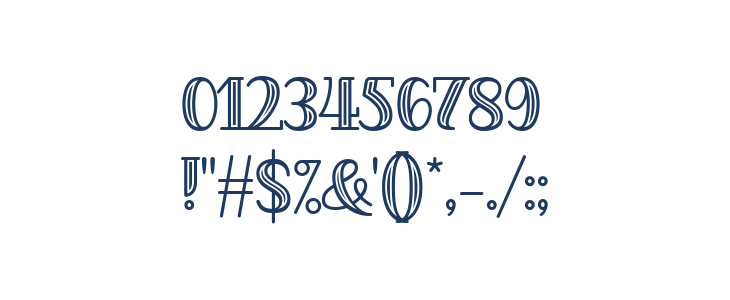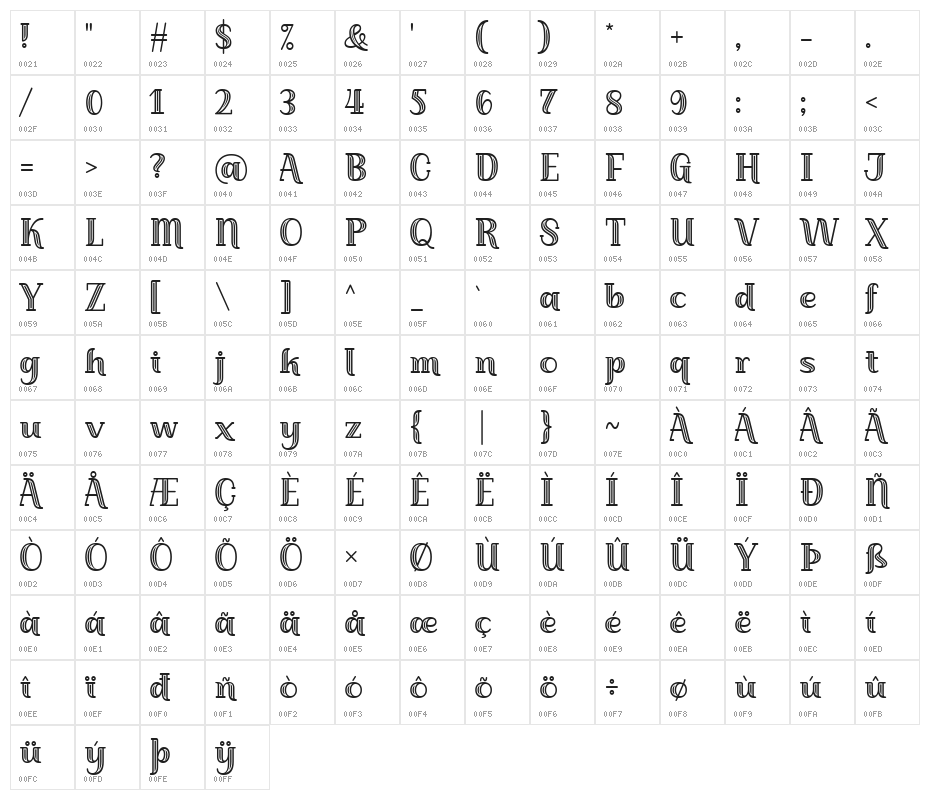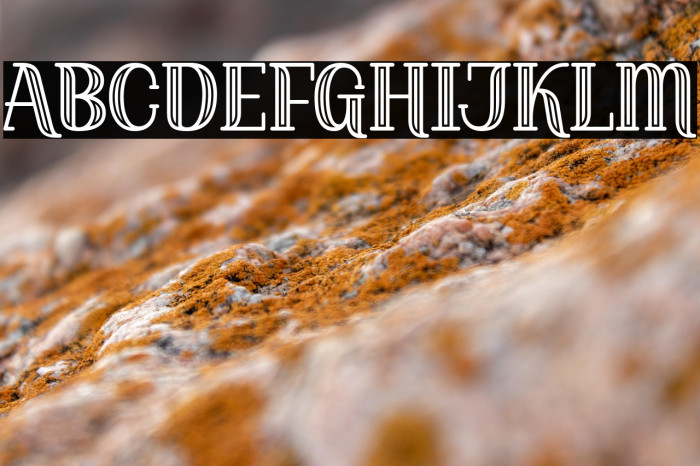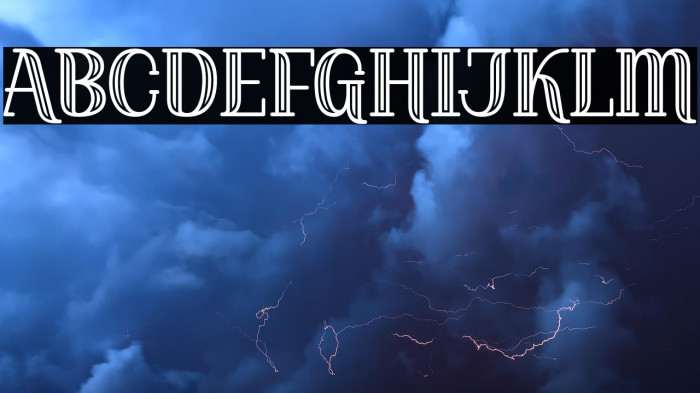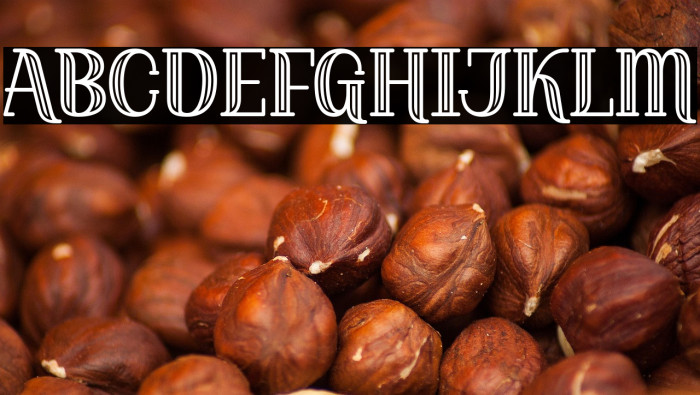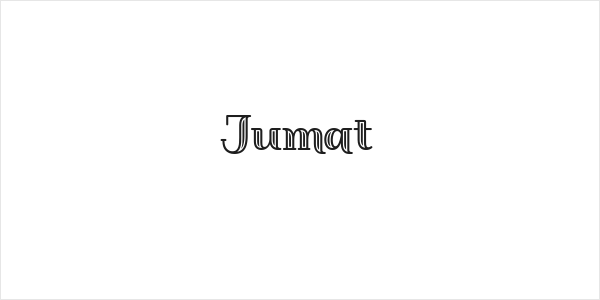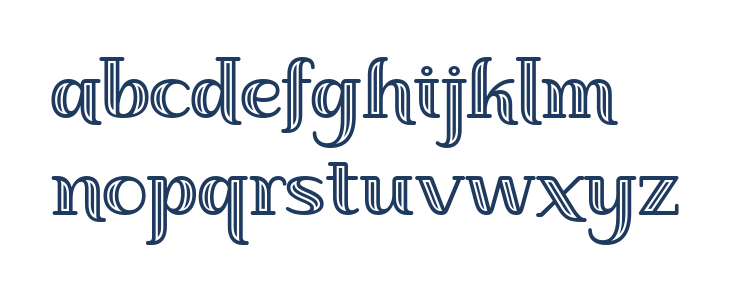
Jumat Font
Jumat Description
This font features a unique blend of modern and vintage styles, characterized by its bold, decorative elements and intricate line work. The uppercase letters exhibit a strong presence with their tall, narrow forms and elaborate serifs, while the lowercase letters maintain a consistent style with slightly more rounded features. The numerals are equally stylized, offering a cohesive look across all characters. Special characters are designed with the same attention to detail, making them stand out. The overall design is both eye-catching and sophisticated, suitable for projects that require a touch of elegance and flair.
| Overall Style | Vintage, Decorative |
| Proposed Projects | Ideal for branding, poster design, book covers, and any project needing a distinctive, elegant touch. |